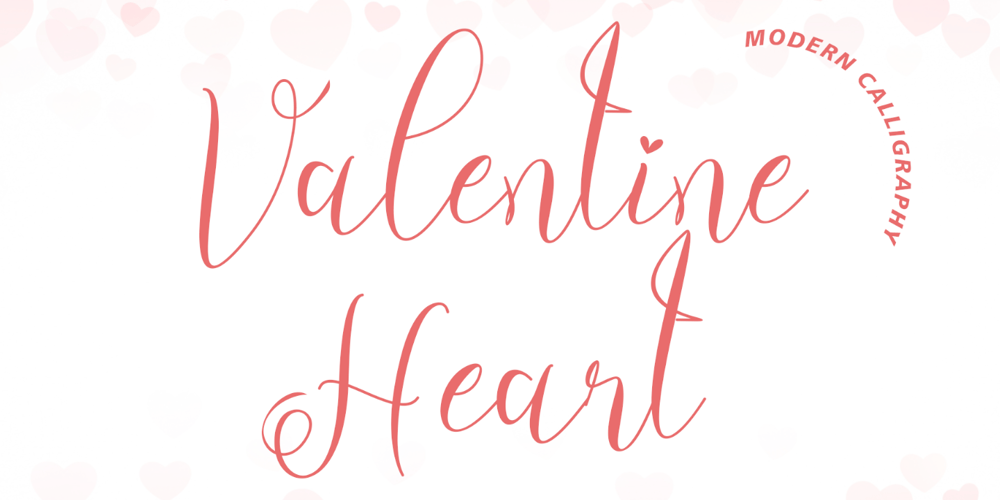
Valentine Heart Font Family was designed by Selvia Cahya and published by Selvia Design. Valentine Heart contains 1 styles and family package options. “Valentine Heart” is a very unique and beautiful script font. This font is equipped with upper- and lower-case letters, ligatures, numerals, punctuation, and multilingual support. Valentine’s Day, a wedding, spring, an invitation, and other romantic occasions are ideal.